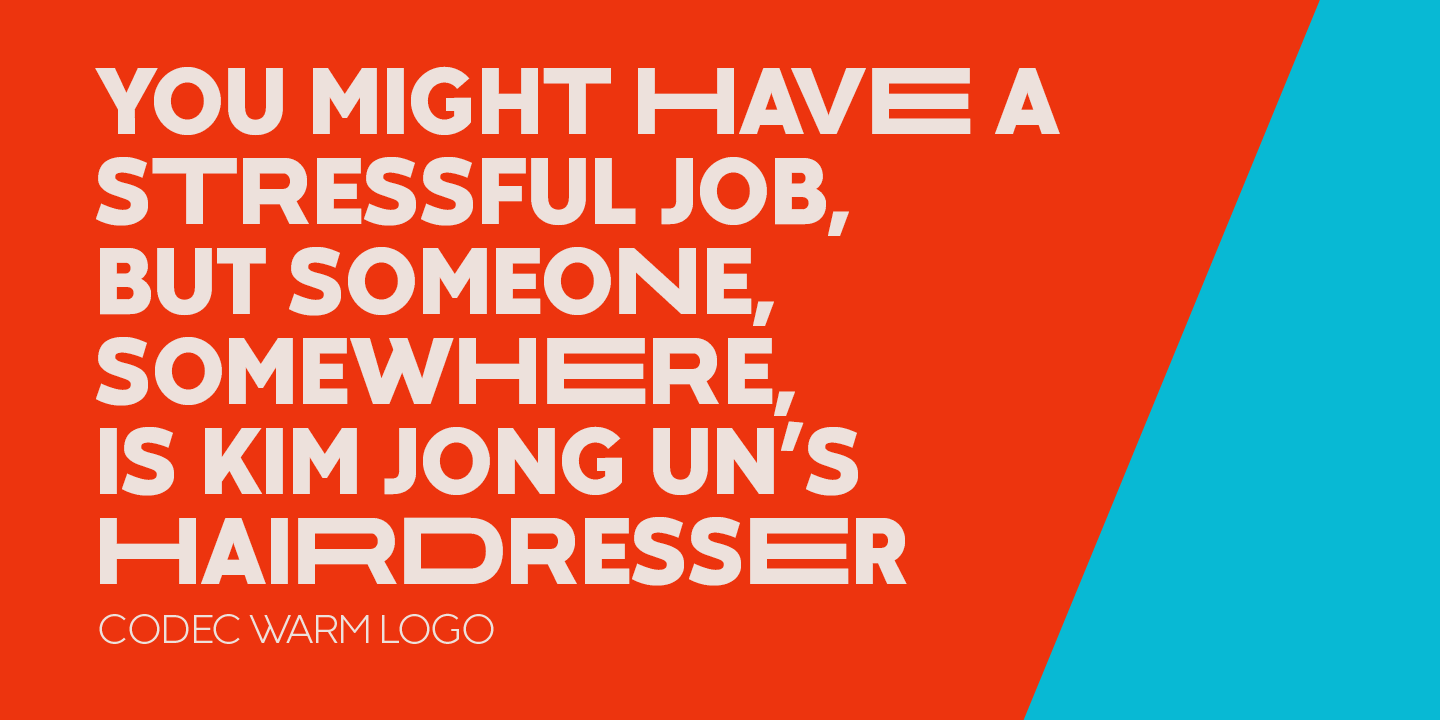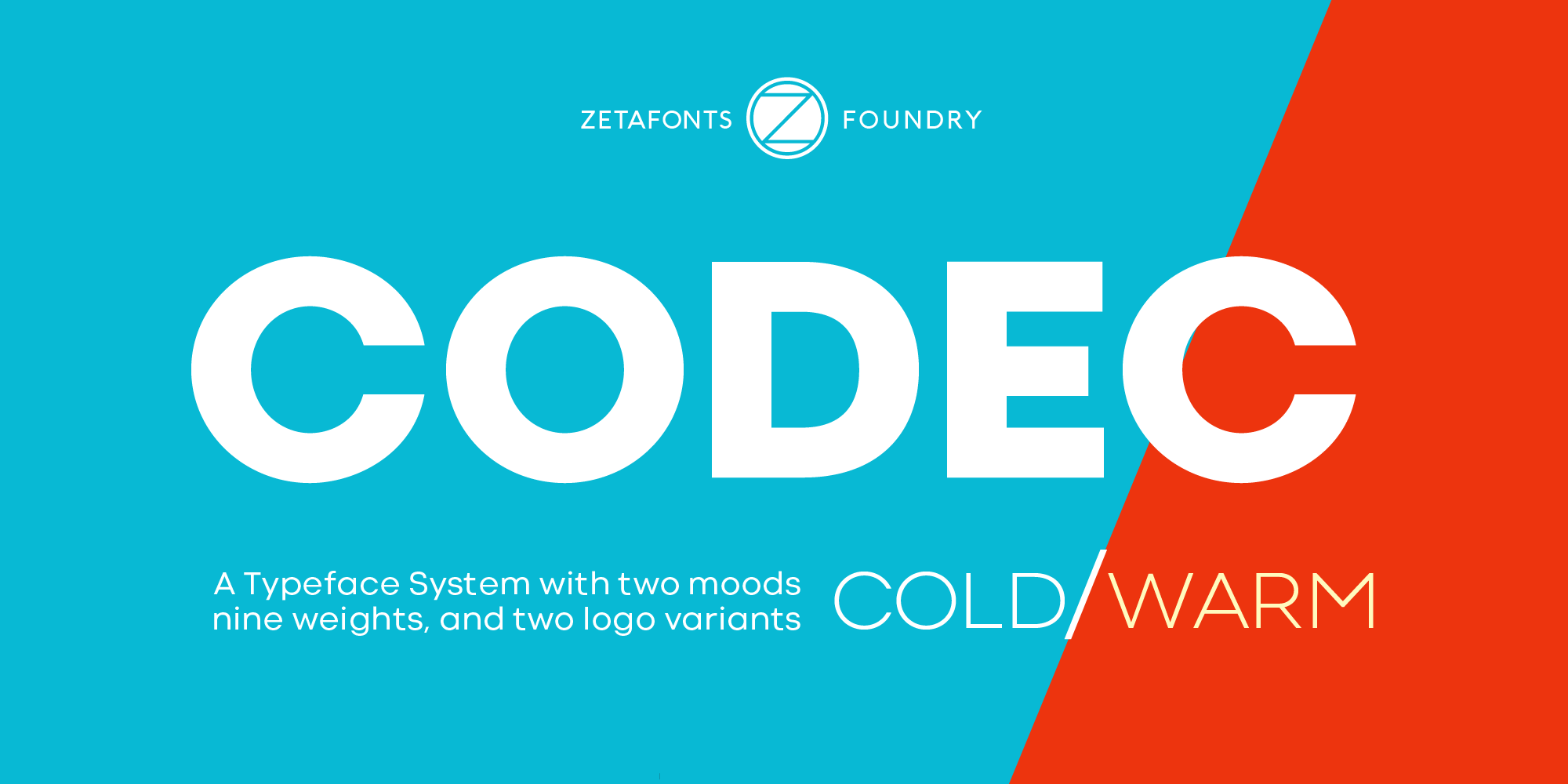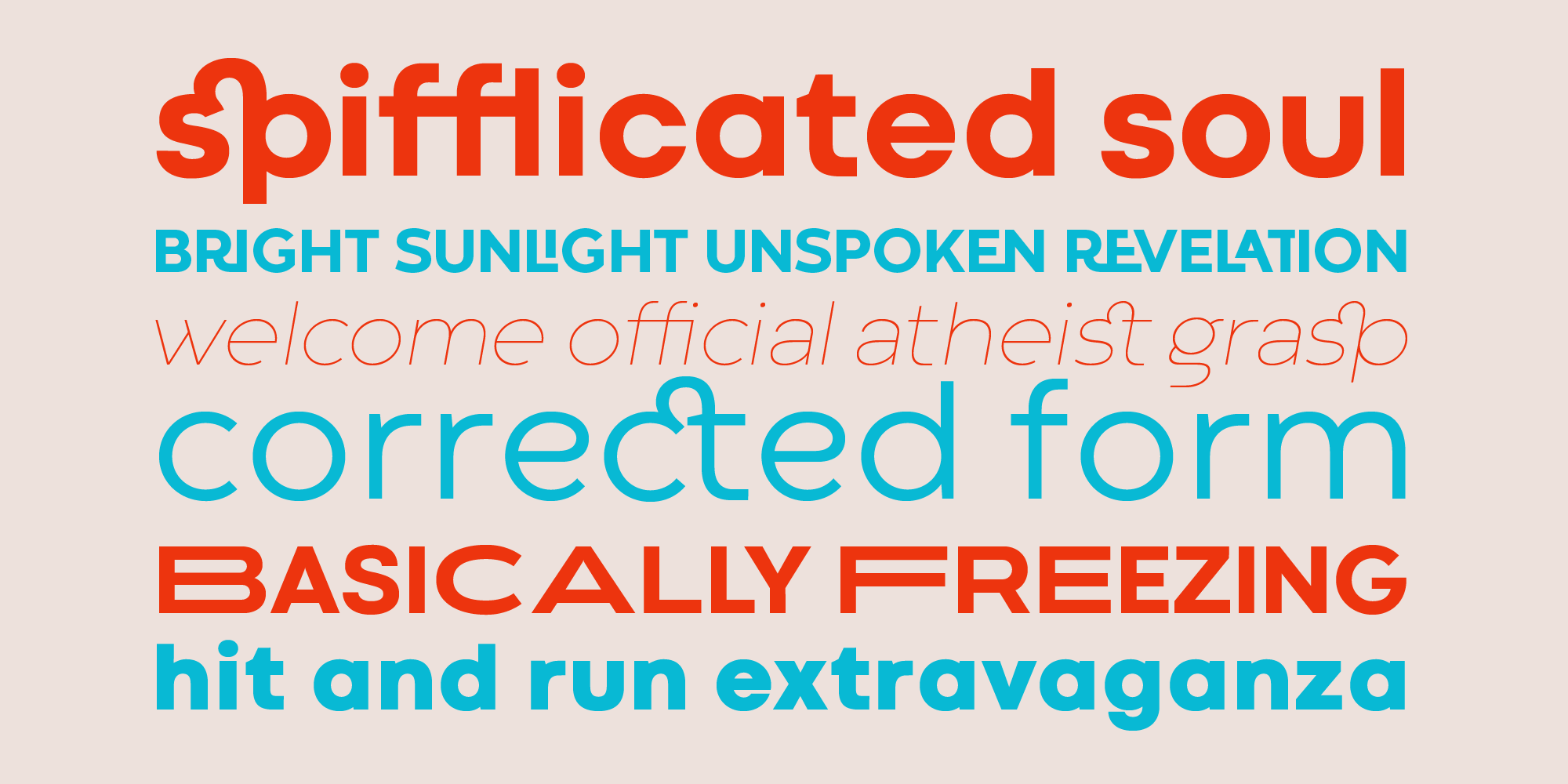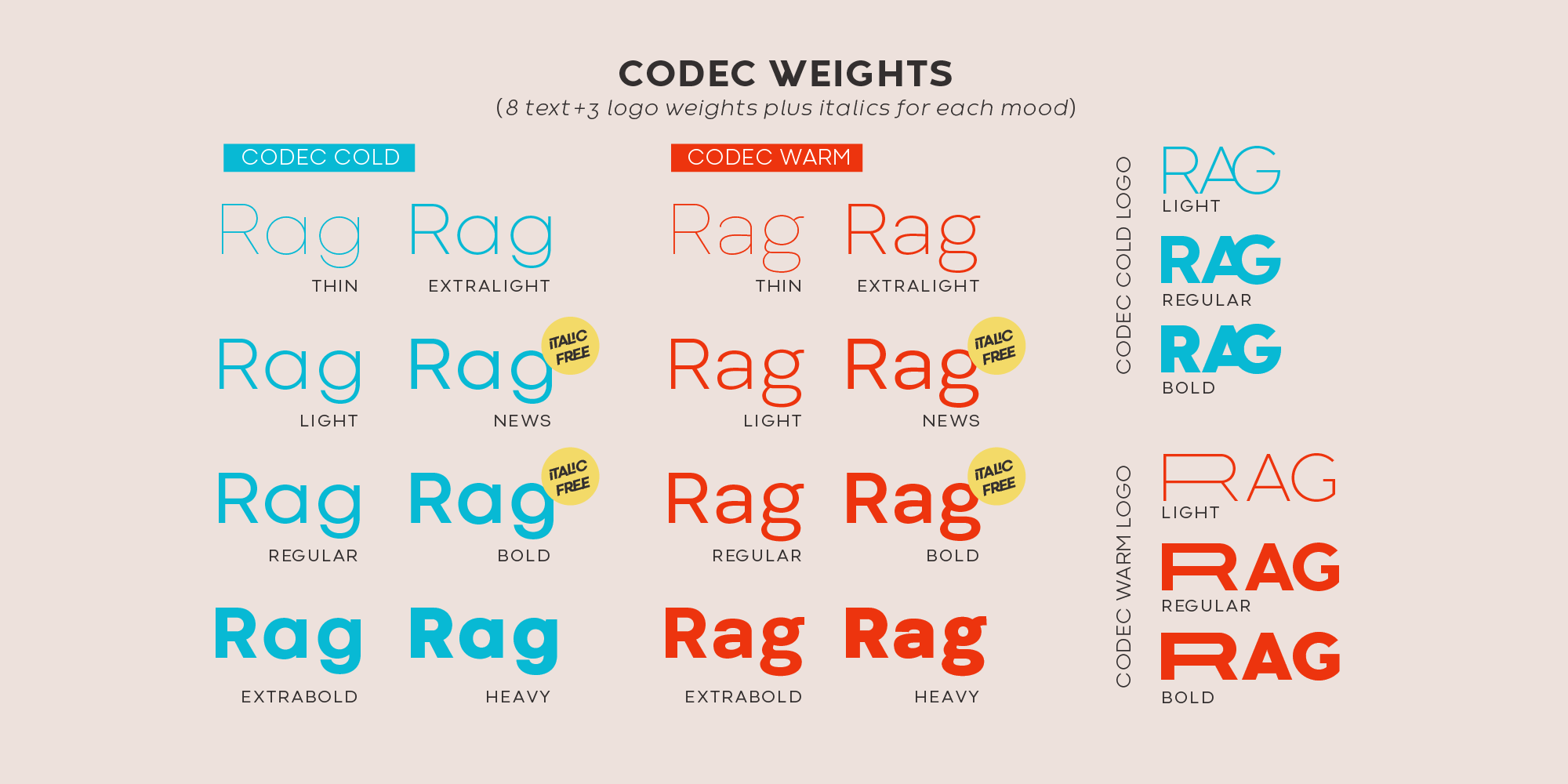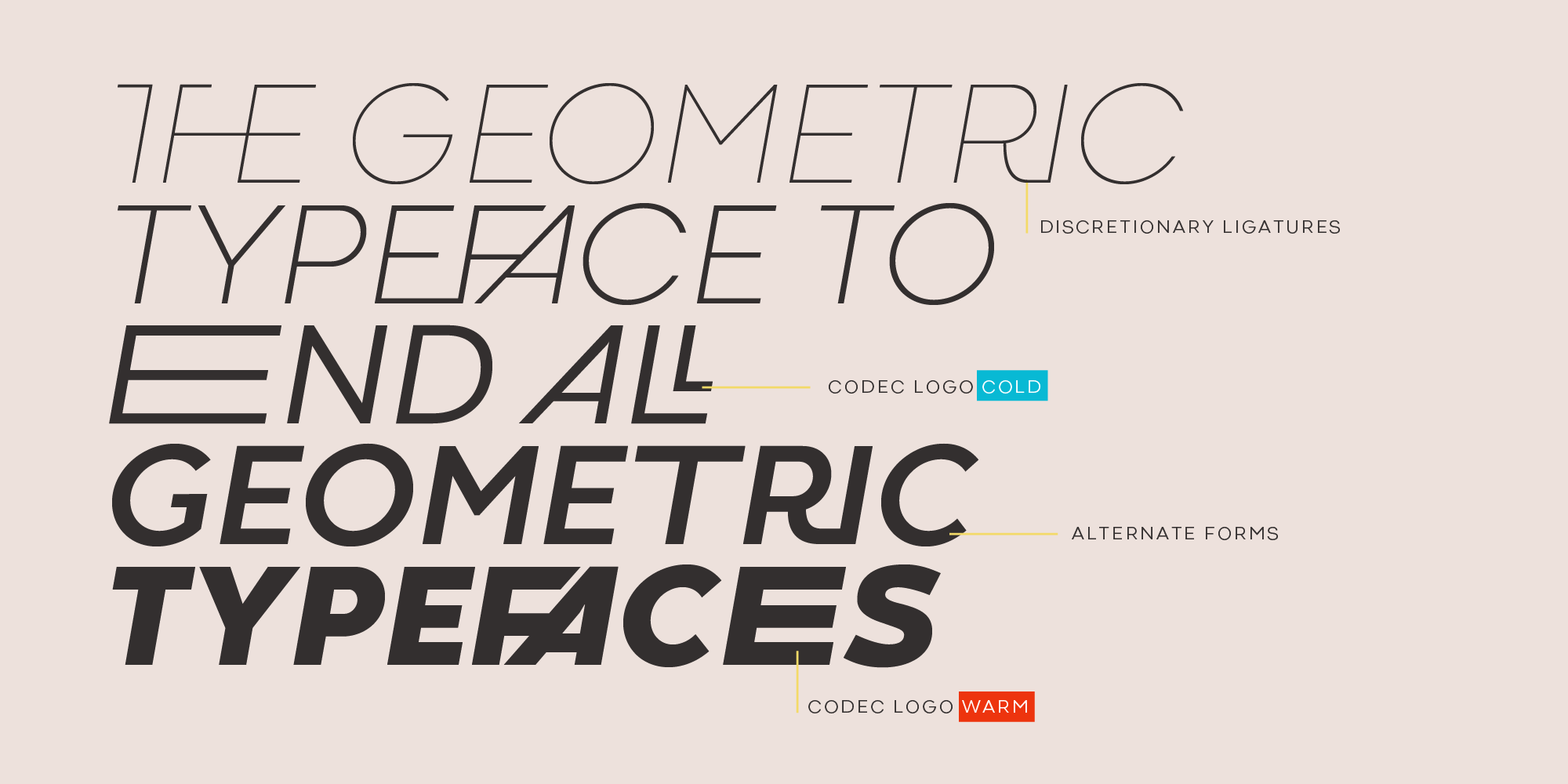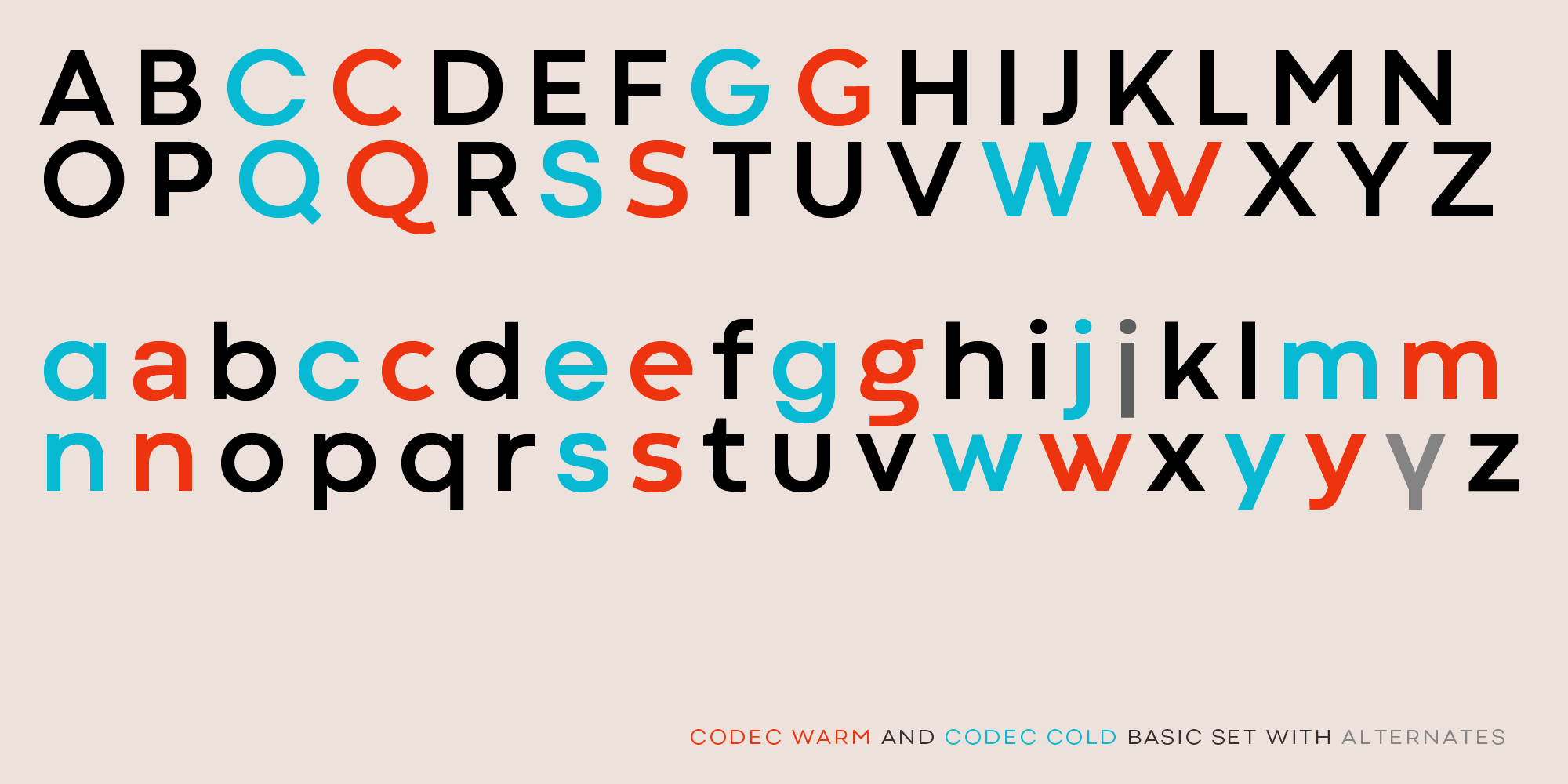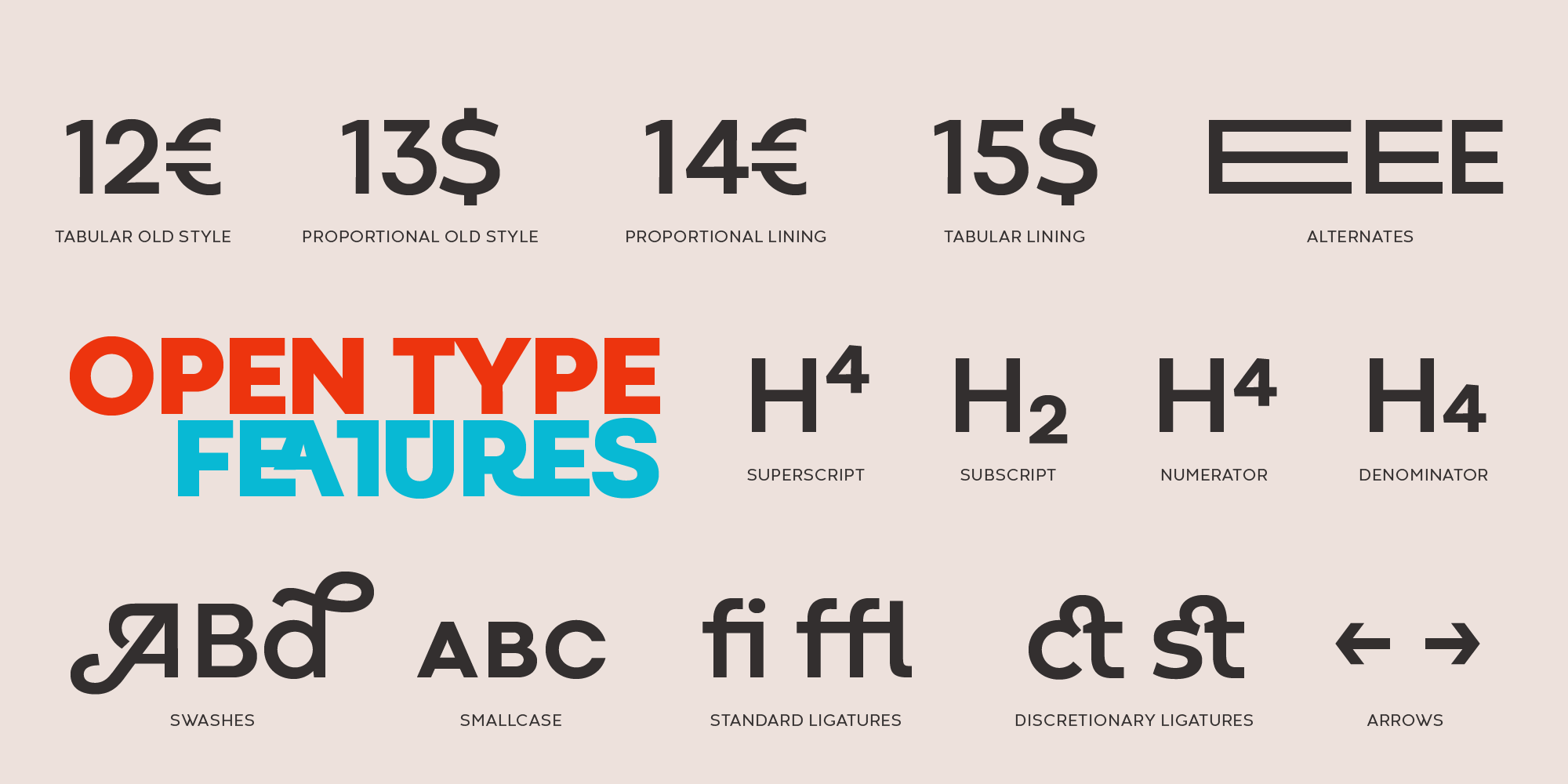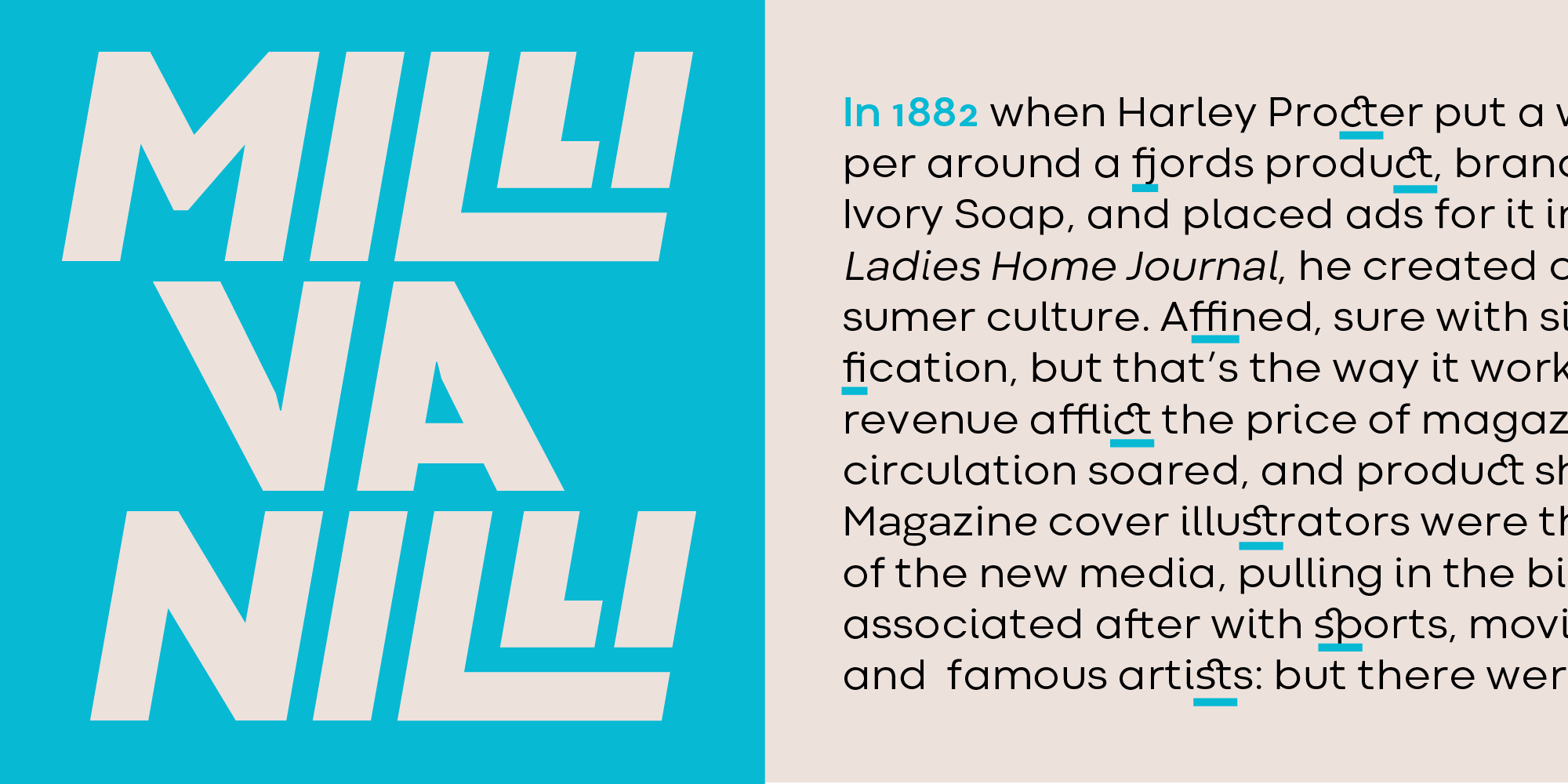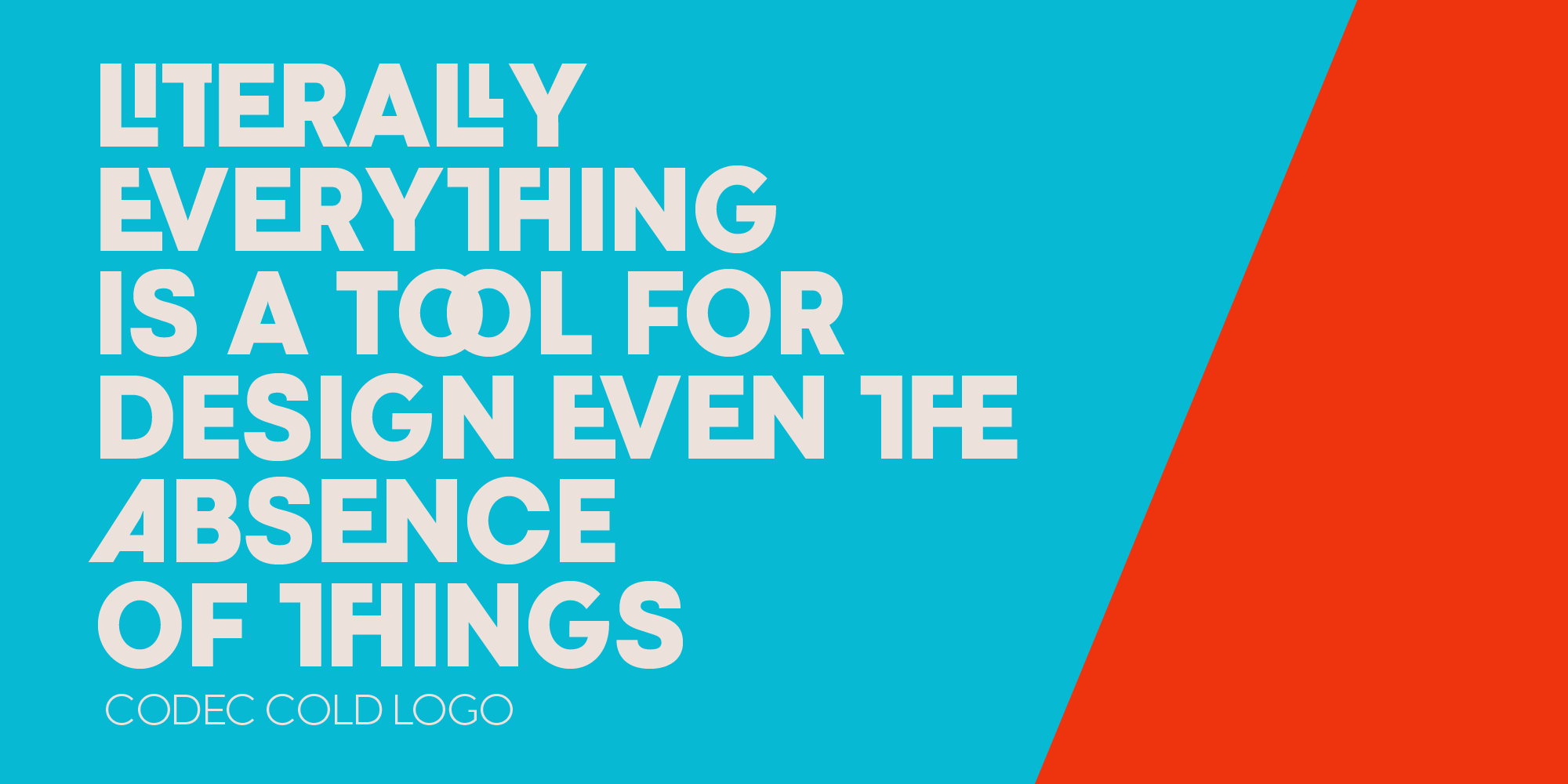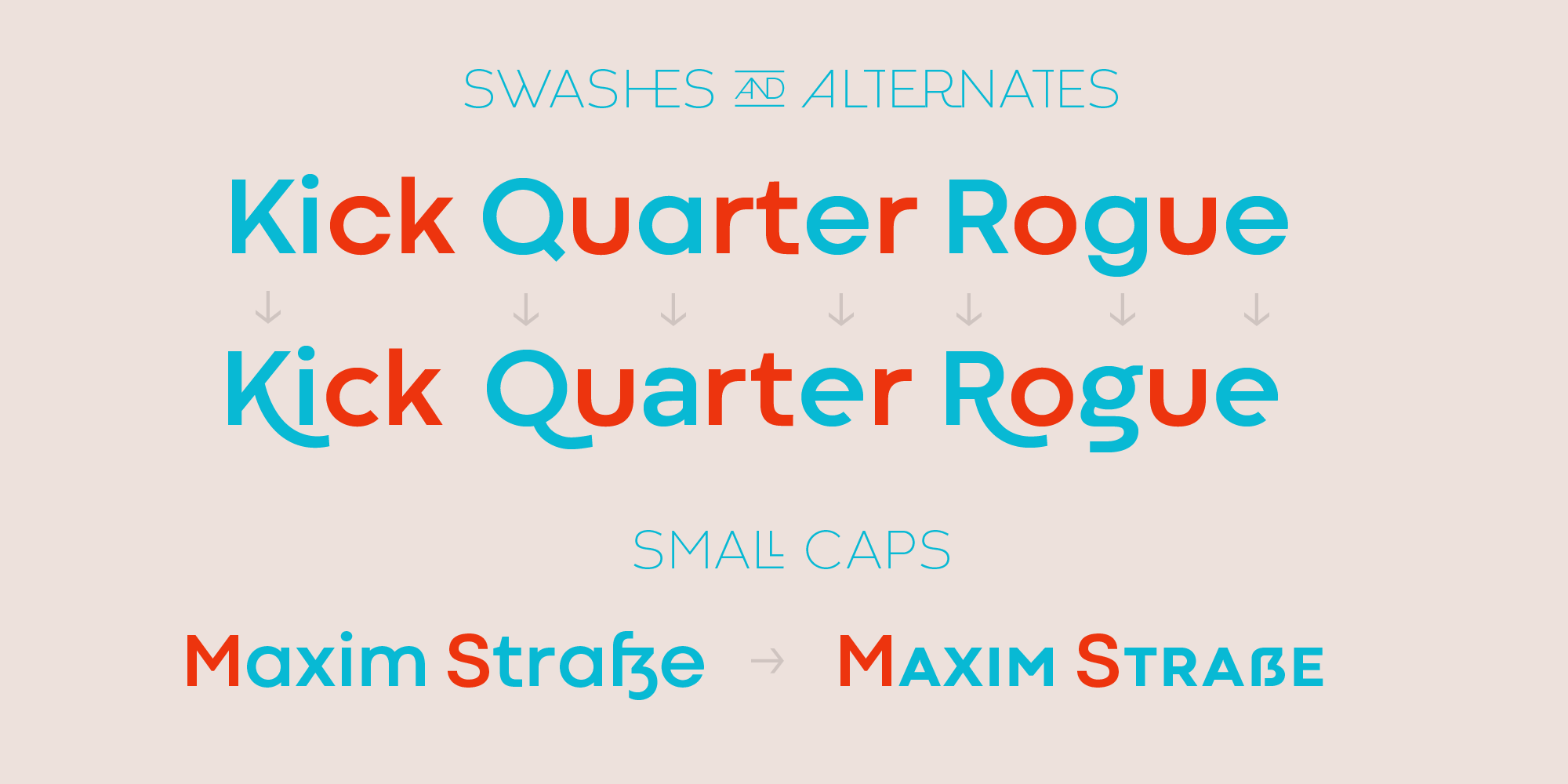
Codec is a geometric sans serif type system, designed by Cosimo Lorenzo Pancini with Francesco Canovaro and Andrea Tartarelli. As in many contemporary typefaces that take inspiration from the constructionist logic of Futura, design is defined by the small choices in the space between rigorous geometric perfection and minimal humanist corrections. But rather than solving this tension with a collection of arbitrary choices, Codec provides you with two coherent variant fonts built on the same base skeleton: Codec Cold and Codec Warm. In Codec Cold terminals  Show all
In Codec Cold terminals are always cut parallel or perpendicular to the baseline, emphasizing geometry and giving the typeface a more constructed look. In Codec Warm, on the contrary, open diagonal cuts and two-storey letterforms give the typeface a slightly more humanist look and a gentler, warmer text feeling. Both Codec Cold and Codec Warm come with a wide range of glyphs for language coverage, including cyrillic and greek alphabets, and of open type features, including small caps, positional numerals and swash forms.
Codec typefaces also include over a hundred variant ligature and alternate glyphs. These glyphs, usually avalaible as discretionary ligatures, have been made permanently active in two subfamilies of Codec Logo, created for display use and logo design, and thus avalaible ina different set of weights. Codec Logo Cold makes the cold geometry alive with funky ligatures, while Codec Logo Warm randomly stretches characters: both allow for quick, unexpected solutions in logo design and display type treatment.
Features
• fl fi
Standard Ligatures
• (HO!)
Case-Sensitive Forms
• ABCDE
Small Capitals From Capitals
• stct
Discretionary Ligatures
• Wagek
Stylistic Alternates
• Abago
Small Capitals
• Vaga
Stylistic Set 1
• Oggi
Stylistic Set 2
• 12/23
Fractions
• 1a 3th
Ordinals
• 12360
Lining Figures
• 12360
Proportional Figures
• 7890
Oldstyle Figures
• 1234
Tabular Figures
• H123
Alternate Annotation Forms
• H123
Denominators
• H123
Subscript
• H123
Superscript
• H123
Scientific Inferiors
• H123
Numerators
• 120
Slashed Zero